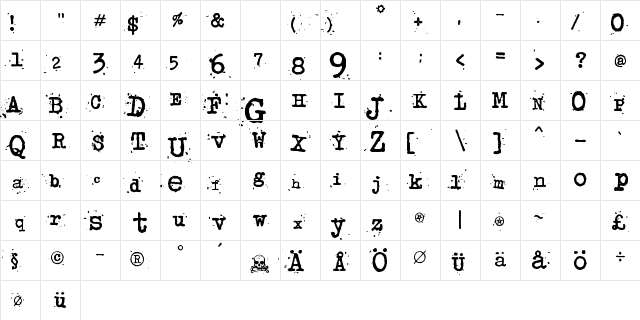
junko's typewriter Regular
Design Context for junko's typewriter Typeface
junko's typewriter brings the precise, column-aligned rhythm of monospaced typography to designs that value technical clarity and systematic order.
Pro Tip: Use junko's typewriter with slightly increased line-height for extended reading — fixed-width spacing can feel dense in longer passages without extra breathing room.